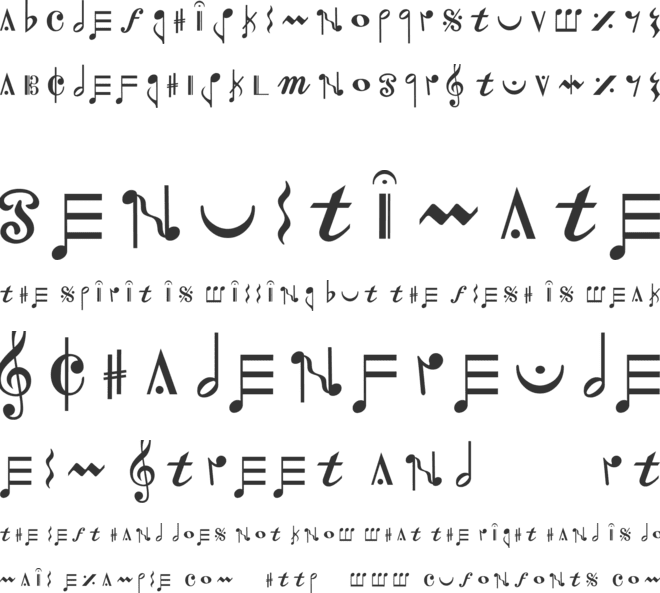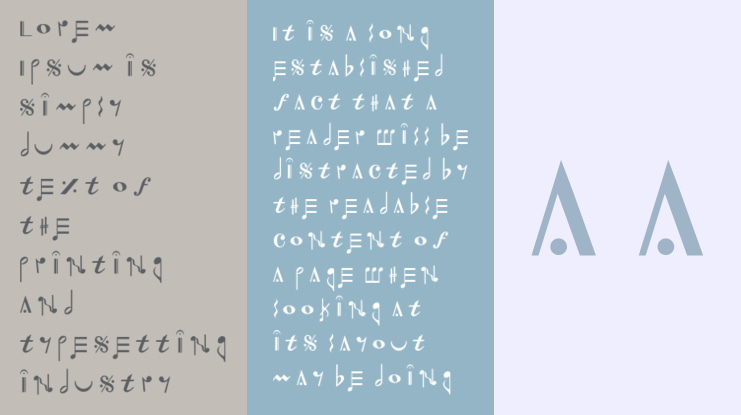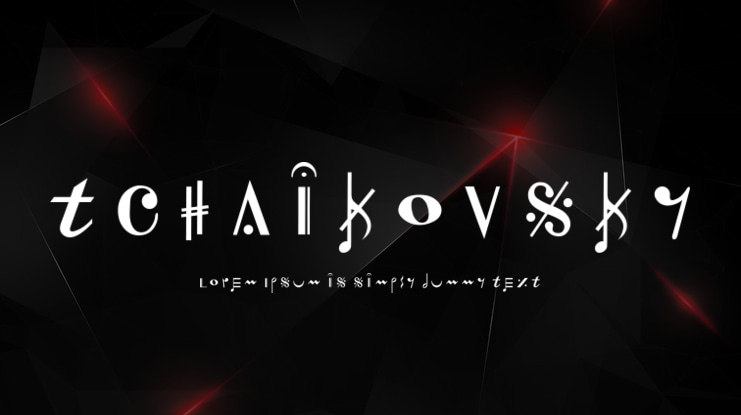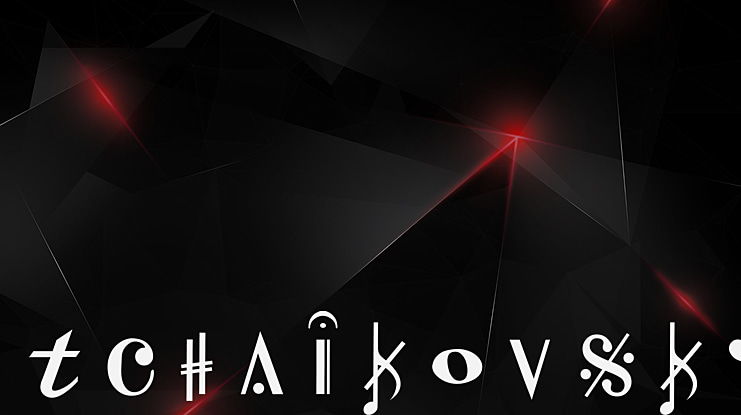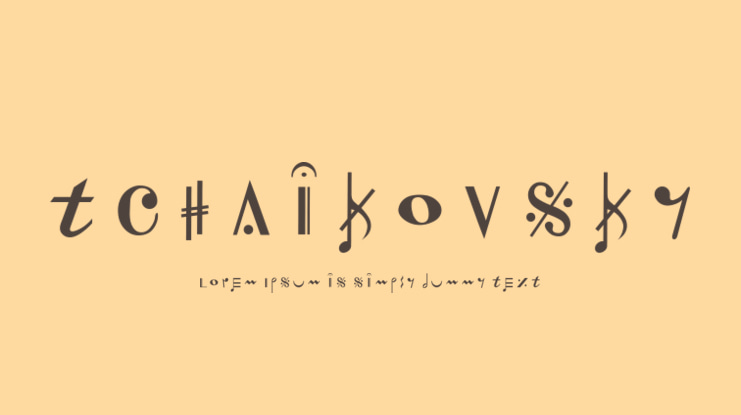
Tchaikovsky Font
Tchaikovsky is a decorative font inspired by music, and designed in a manner so that each character is a “real” musical symbol.
It started as a personal project, I was looking for a music notation font. When I couldn’t find anything to my liking, I decided to create my own version.